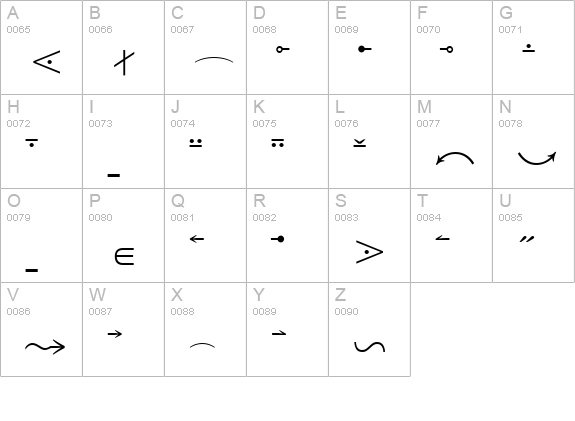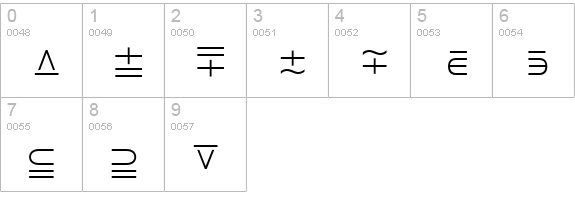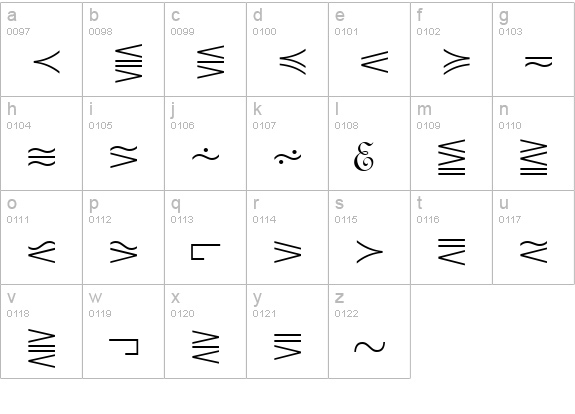
Introducing the captivating Quanta Pi One SSi font, a perfect blend of elegance and modernity. With its sleek and stylish design, this typeface effortlessly captures the attention of any viewer. Created with meticulous attention to detail, Quanta Pi One SSi is a true testament to the artistry of typography. This remarkable font boasts a unique combination of sharp edges and smooth curves, resulting in a harmonious balance that exudes sophistication. Whether used for headlines, logos, or body text, Quanta Pi One SSi adds a touch of refinement to any project. One of the standout features of Quanta Pi One SSi is its versatility. This font effortlessly adapts to various design styles, from minimalistic to bold and vibrant. Its wide range of weights and styles allows for endless creative possibilities, ensuring that every designer's vision can be brought to life. But what sets Quanta Pi One SSi apart is its availability as a free download at FontsMarket.com. Yes, you read that right – this extraordinary font is freely accessible, allowing designers and enthusiasts alike to experience its beauty without any cost. FontsMarket.com is dedicated to providing high-quality fonts to the design community, and Quanta Pi One SSi is one of their prized offerings. So, whether you're a seasoned designer or a typography enthusiast looking to enhance your projects, Quanta Pi One SSi is the perfect choice. With its stunning aesthetics, versatility, and the added bonus of being freely available at FontsMarket.com, this font is undoubtedly a must-have in your design arsenal. Embrace the power of Quanta Pi One SSi and elevate your creative endeavors to new heights.